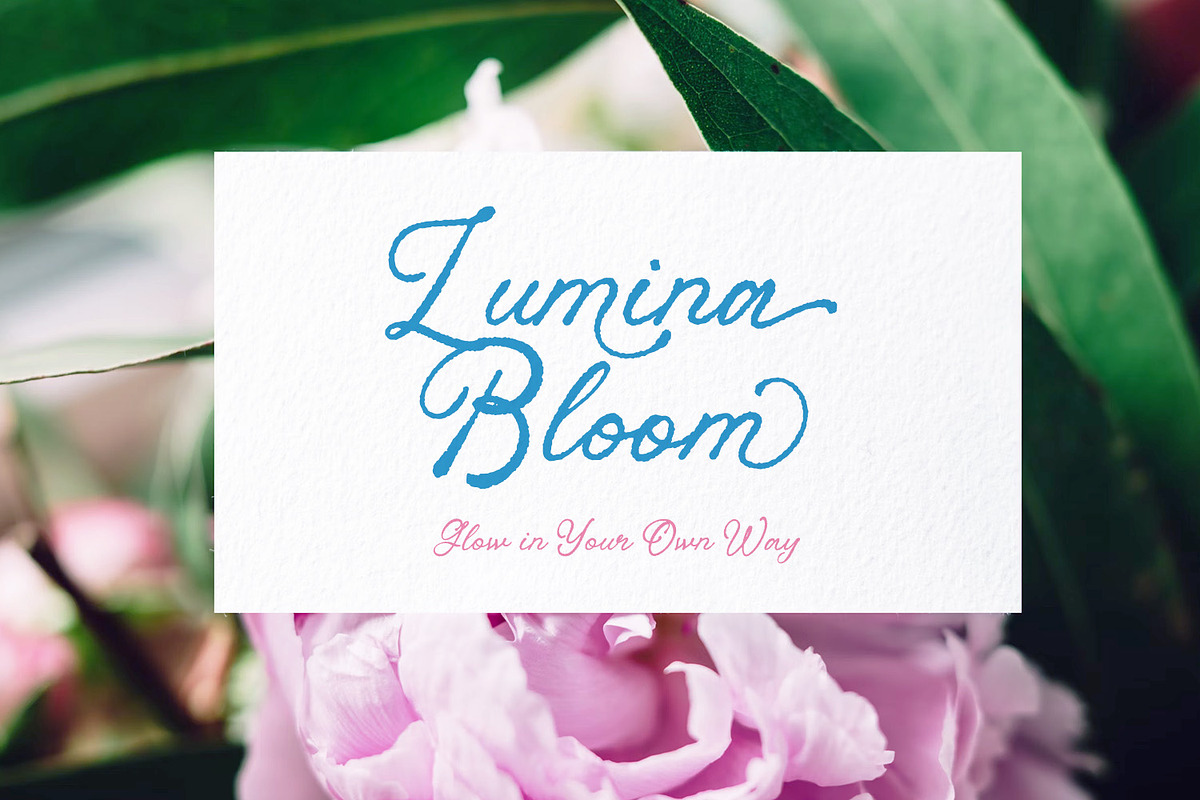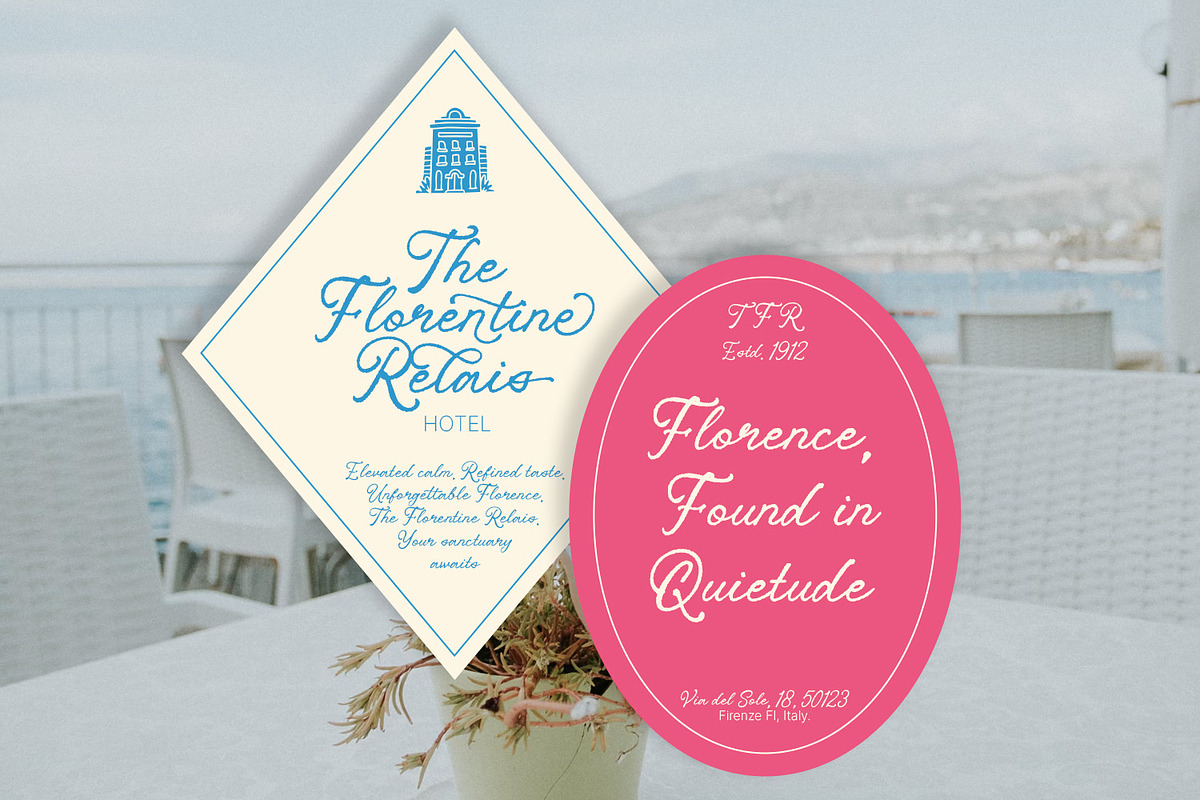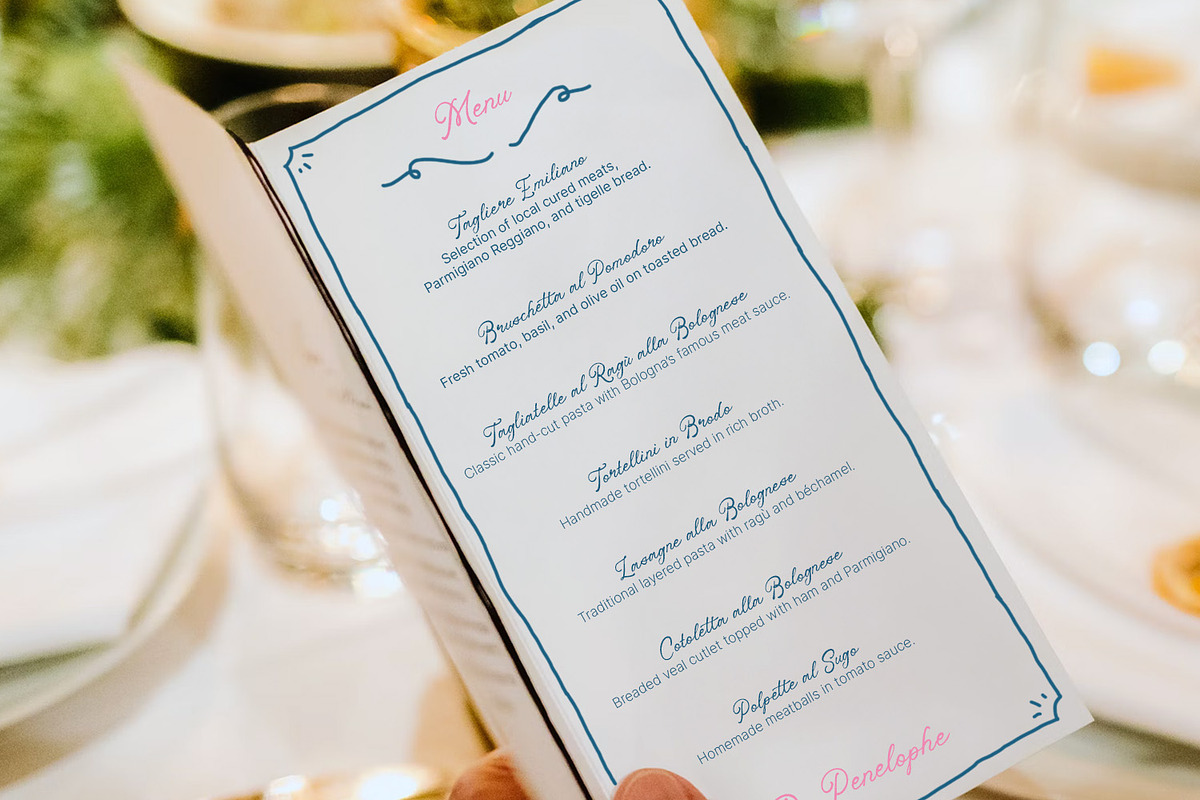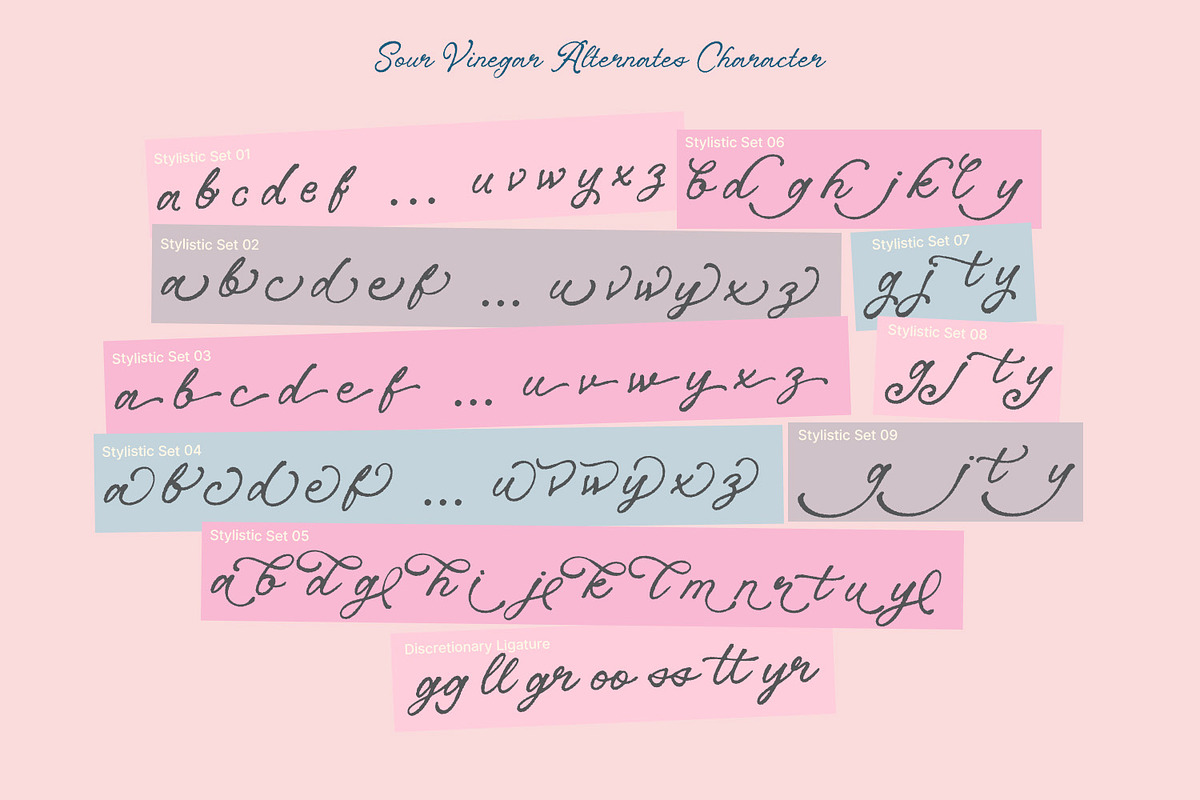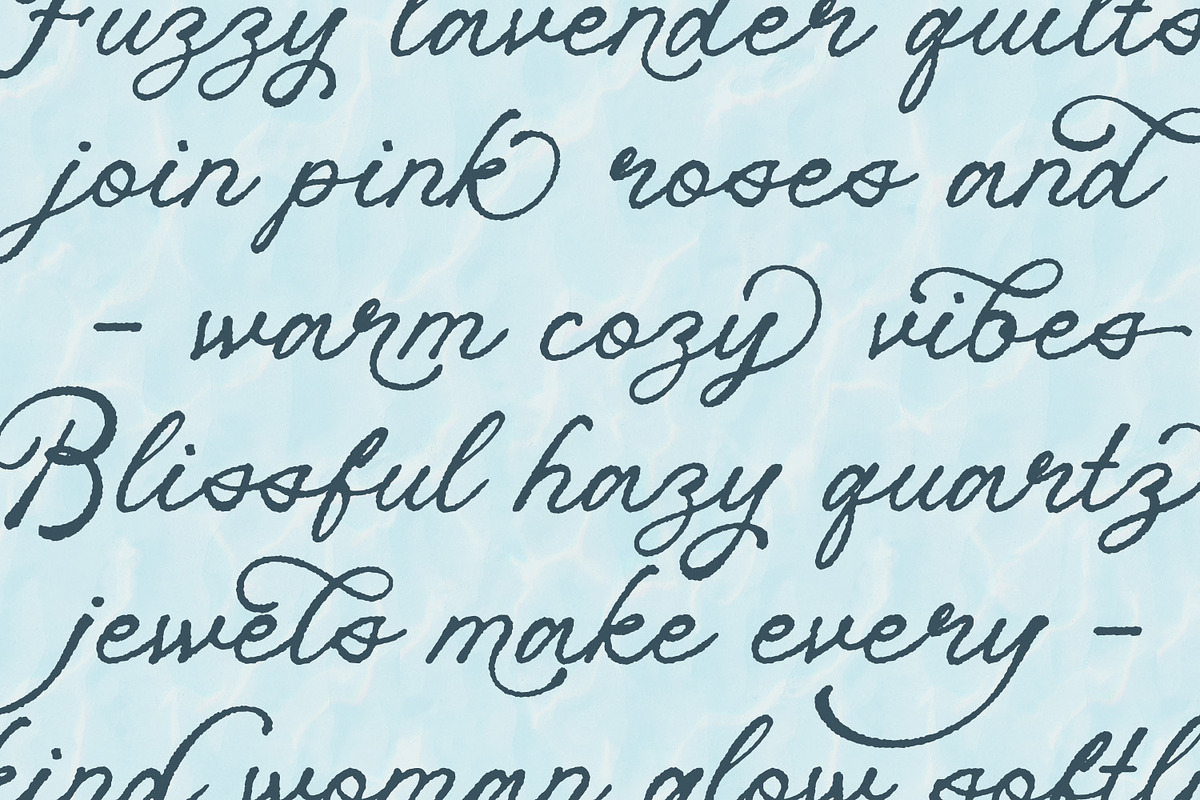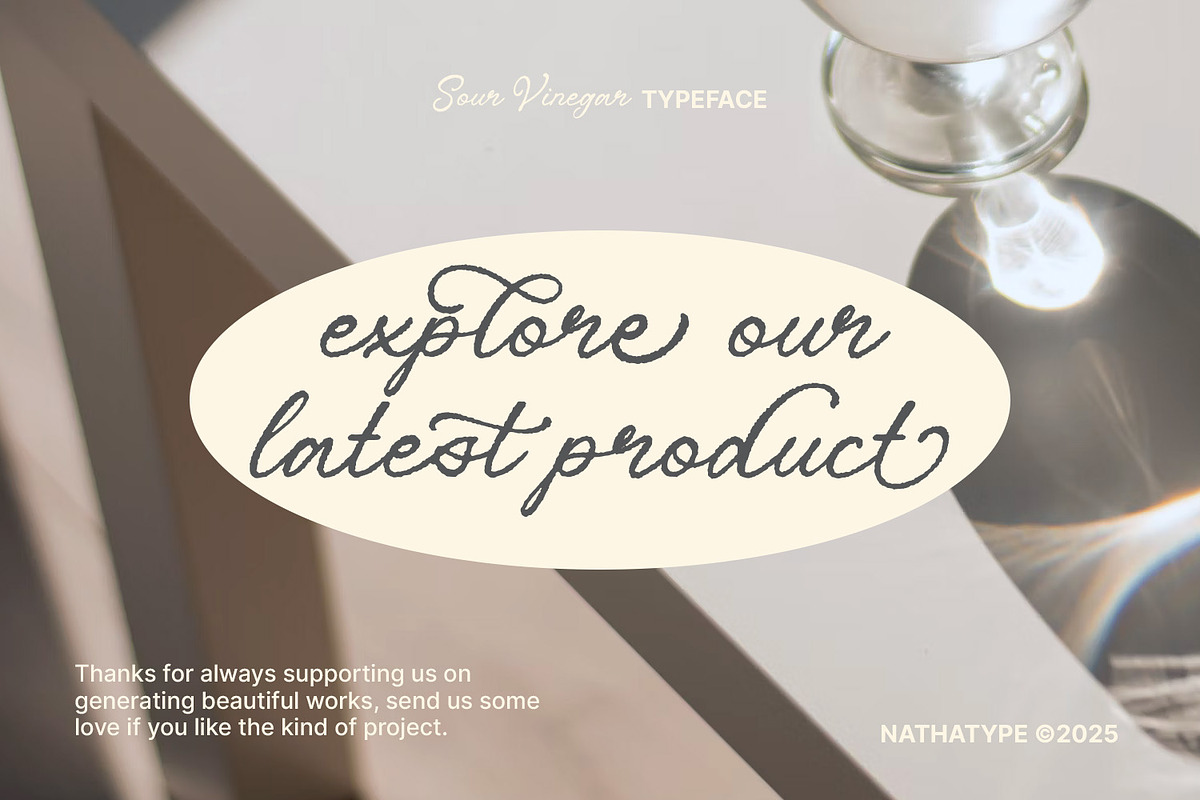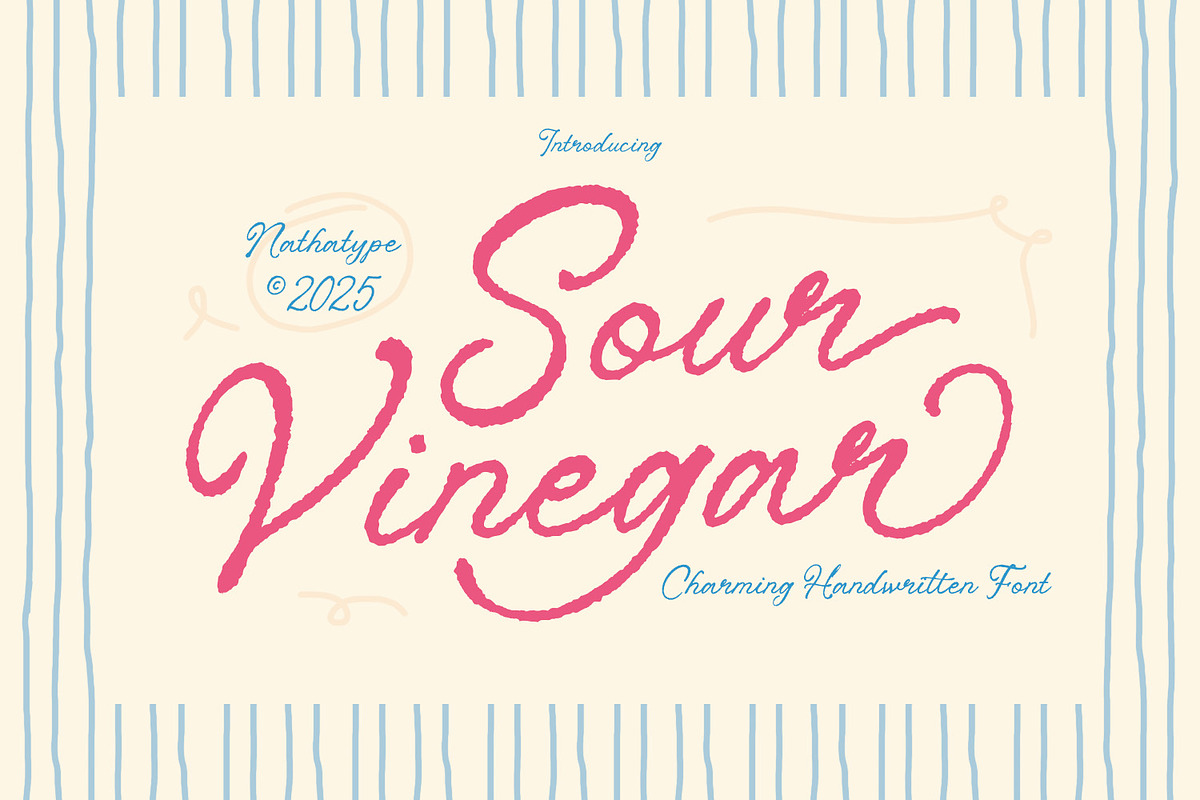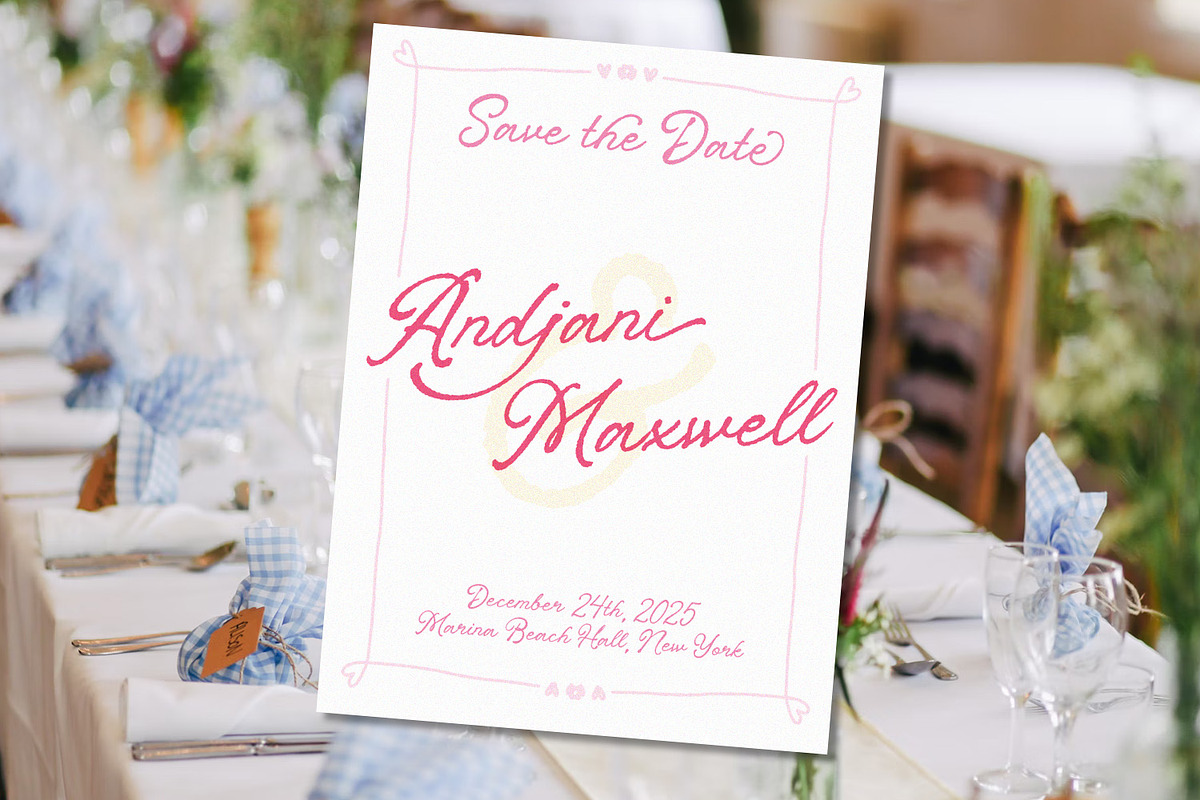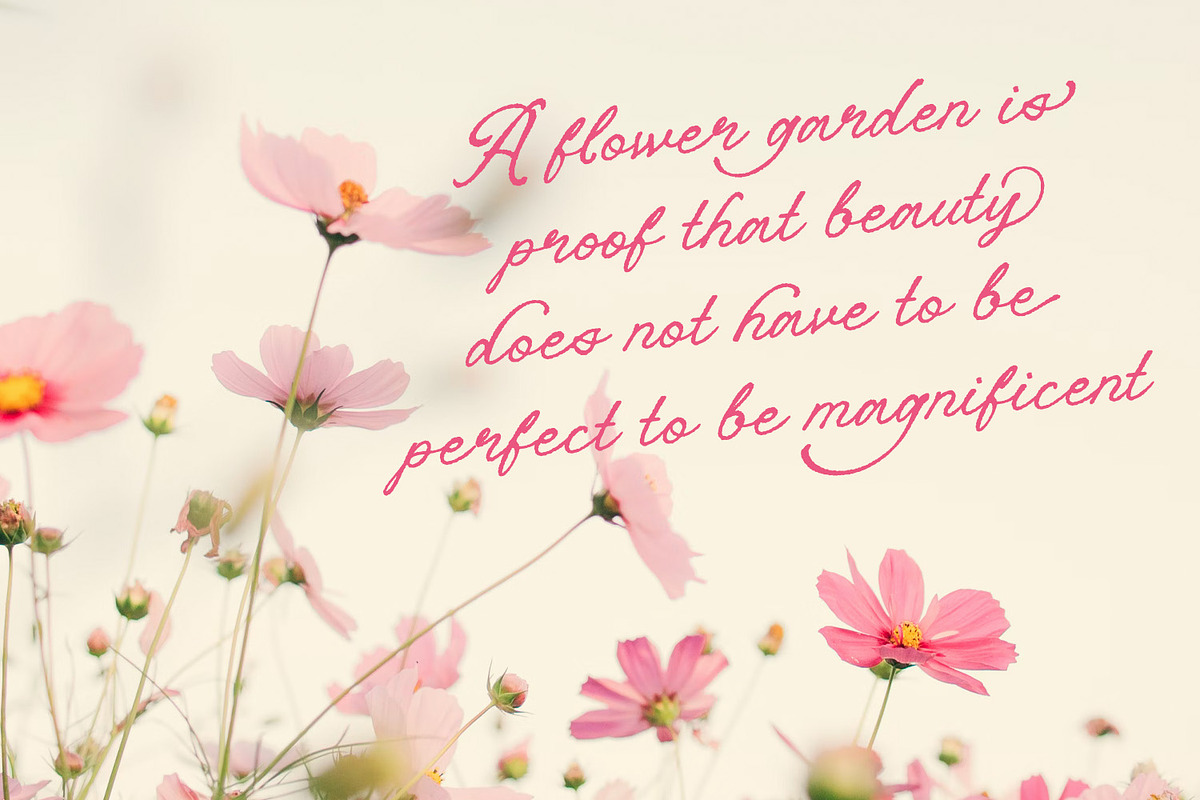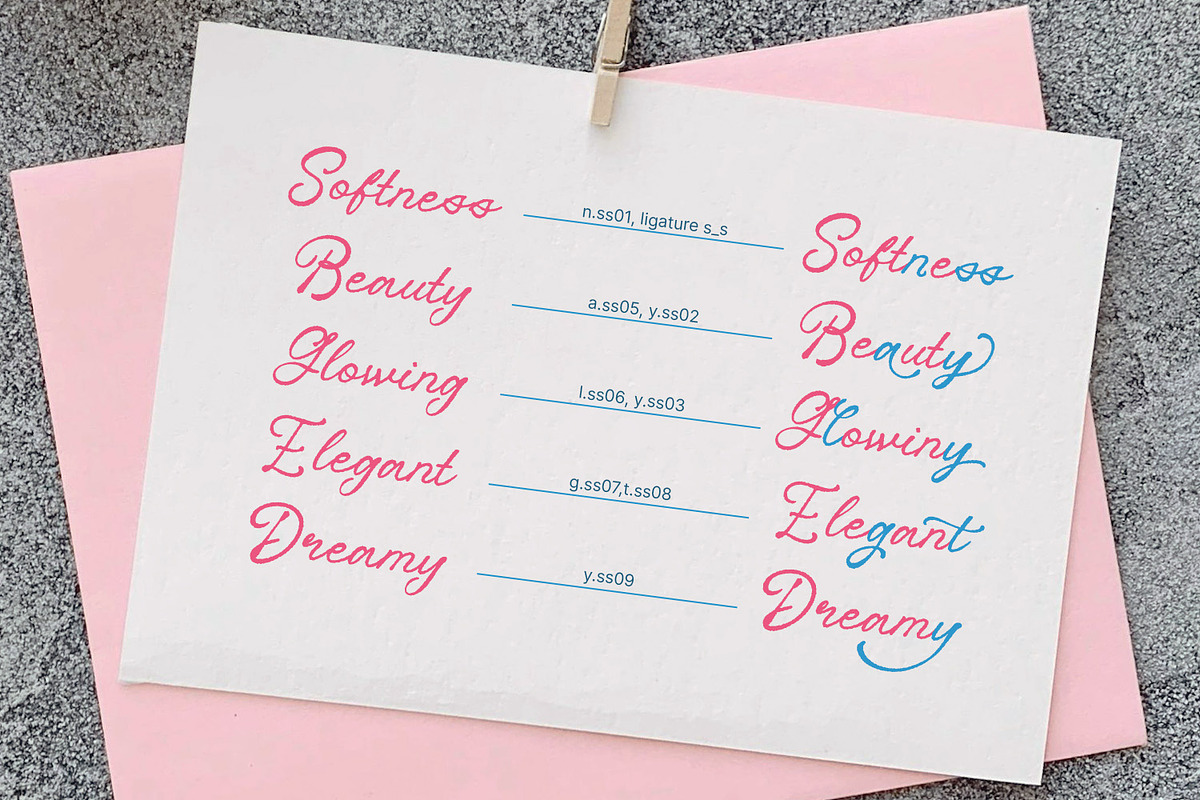
Sour Vinegar
Sour Vinegar is a handwritten cursive font. Inspired by flowing cursive pen strokes, this font features smooth connected letters, low contrast, and irregular outlines instead of straight lines, giving it a genuine hand-drawn and expressive character. The result is a typeface that feels personal, relaxed, and creatively authentic. In addition, enjoy the features here.
Sour Vinegar fits in logos, quotes, invitations, branding, posters, and many more designs. Find out more ways to use this font by taking a look at the font preview.